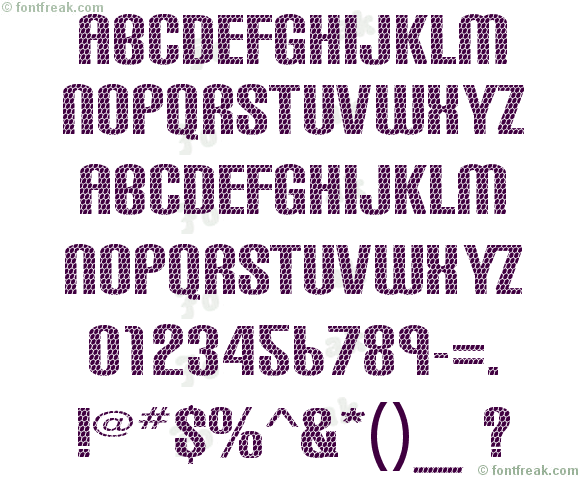
Carbon Phyber
About Carbon Phyber
Carbon Phyber, created by Ray Larabie in 1999, is a striking display font that embodies a unique blend of modernity and industrial flair. This freeware font features a distinctive geometric style characterized by its bold, block-like letterforms and a textured appearance that resembles woven fibers. The stroke weight is consistent, lending clarity and impact to each character, while the spacing is carefully balanced, ensuring legibility even at larger sizes. Carbon Phyber’s decorative elements contribute to its eye-catching design, making it an excellent choice for various creative projects.
Ideal use cases for the Carbon Phyber font include movie posters, where its bold presence can draw attention and convey a sense of action or drama. It also works wonderfully for branding purposes, particularly for tech companies or innovative start-ups looking to communicate a modern aesthetic. Additionally, this font is suitable for music album covers, giving a rugged feel that resonates with rock or electronic genres. Graphic designers may also find it perfect for creating impactful headlines in magazines or online publications.
The target audience for this font comprises graphic designers, small business owners, and content creators who are seeking a visually compelling typeface that stands out. Carbon Phyber’s unique qualities make it a go-to choice for those who want to make a memorable impression in their design work.